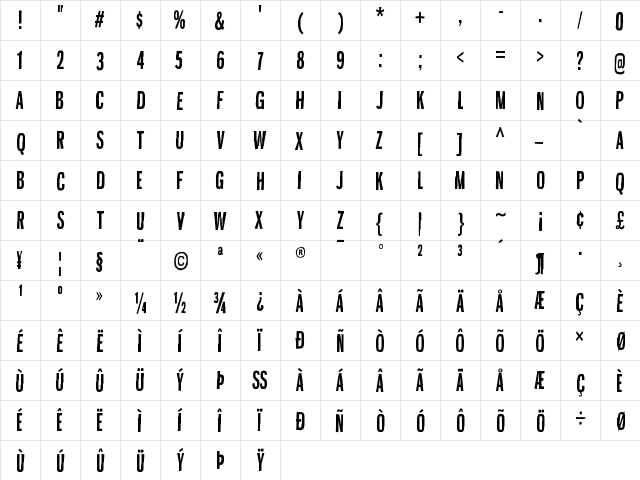
Darkheart Regular
Design Context for Darkheart Typeface
Darkheart takes a measured approach to typography — its balanced proportions and neutral character make it a reliable workhorse for both digital and print work.
Pro Tip: Use Darkheart in both headline and body roles to test its range before committing to a single application.